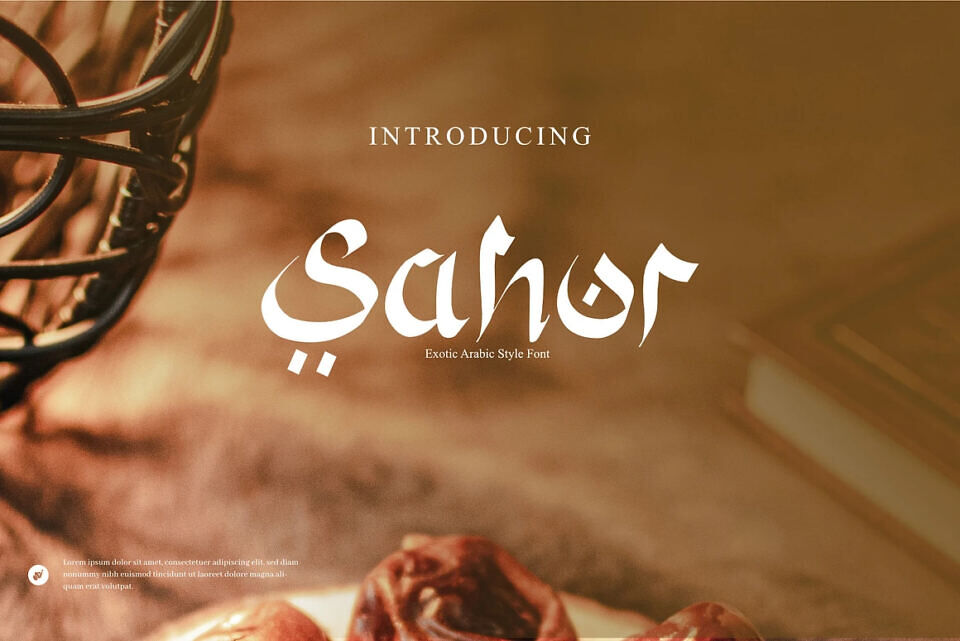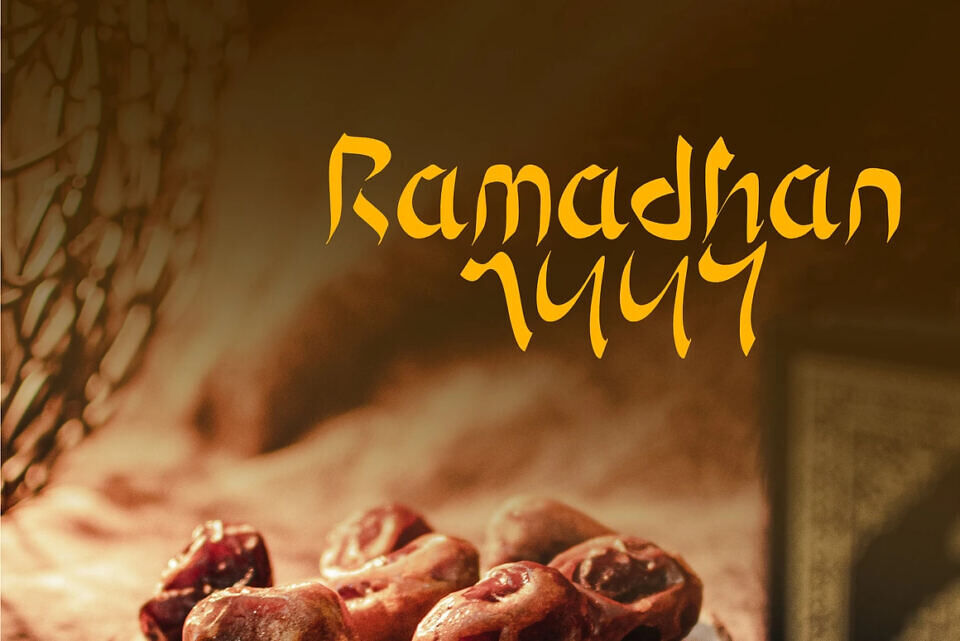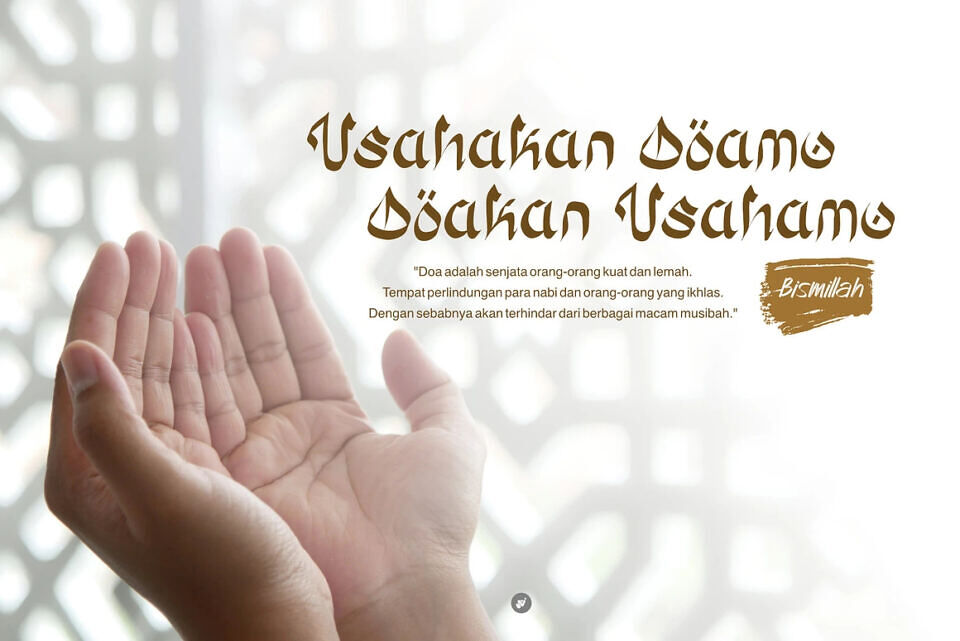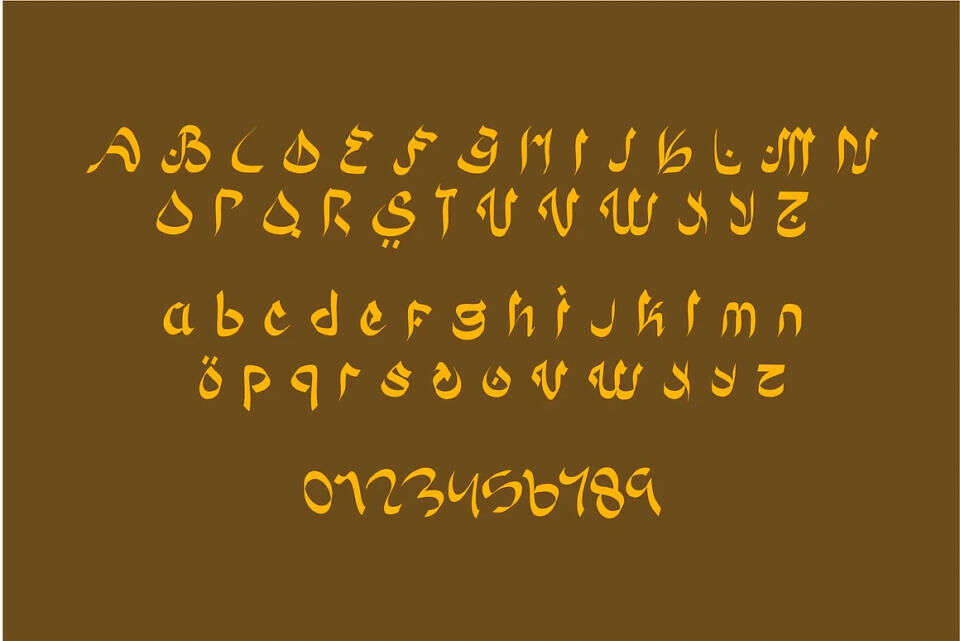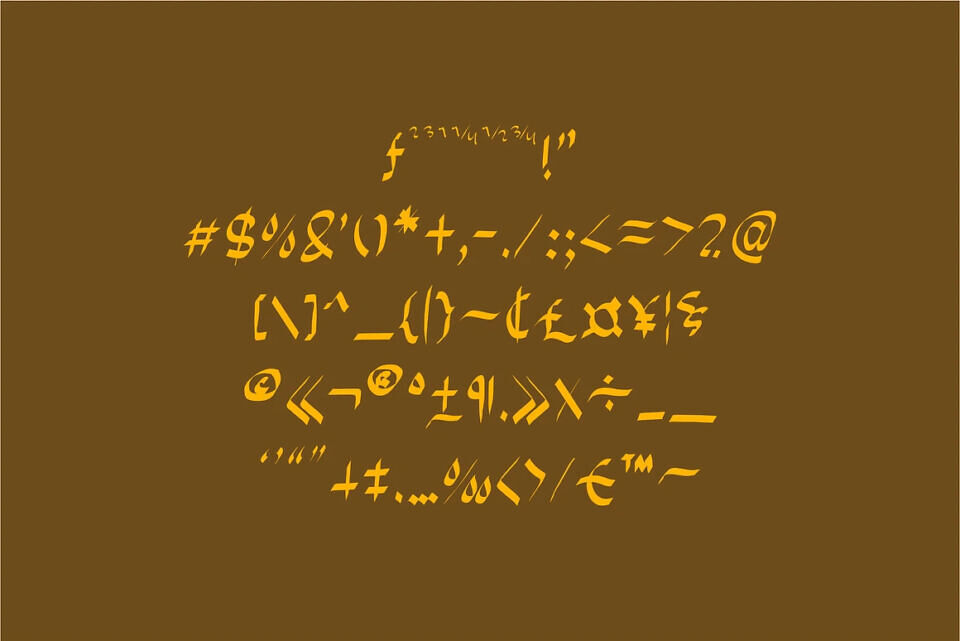
Add an elegant Middle Eastern touch to your designs with Sahur, a font that embodies Arabic style. Its strong, exotic curves bring a sense of sophistication and artistry, perfect for creating a unique and captivating visual experience.